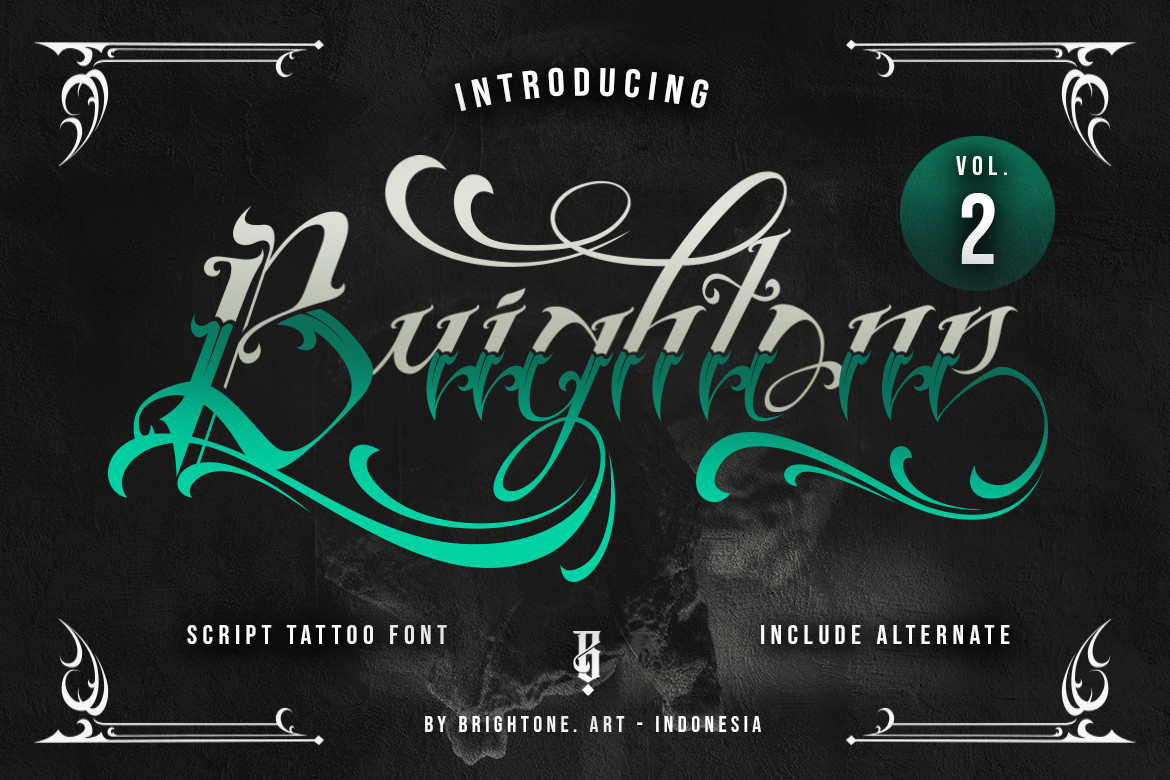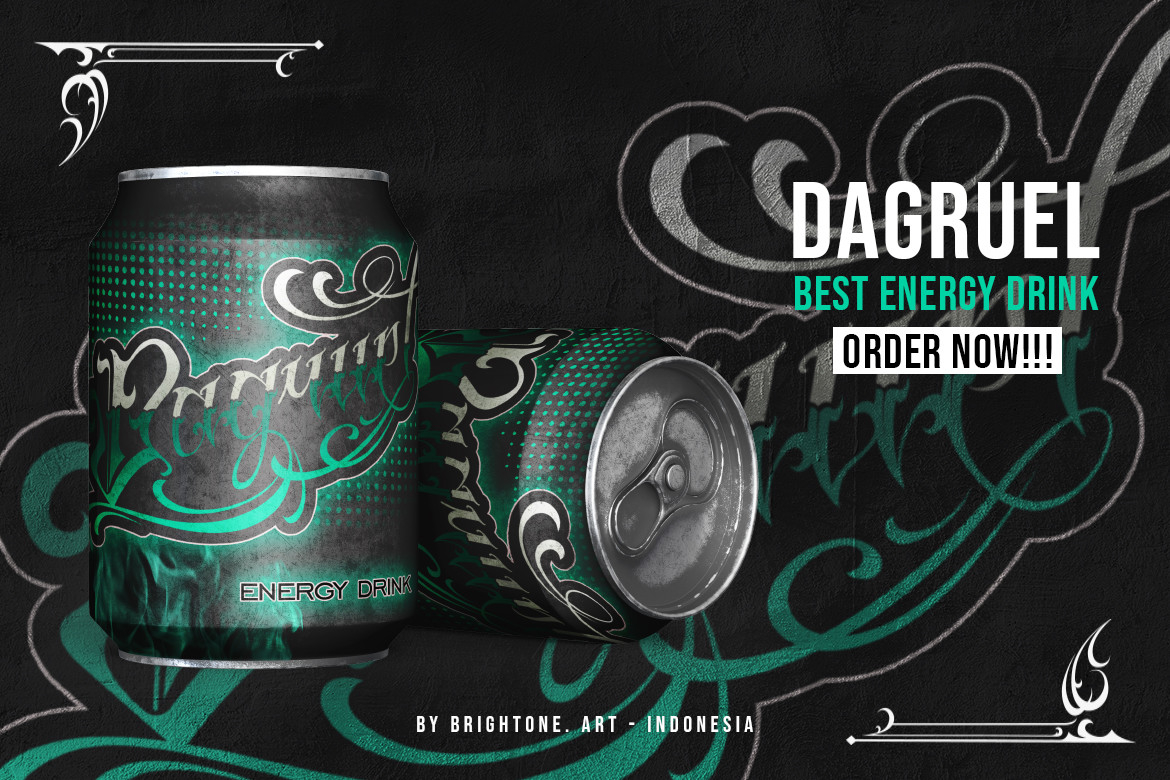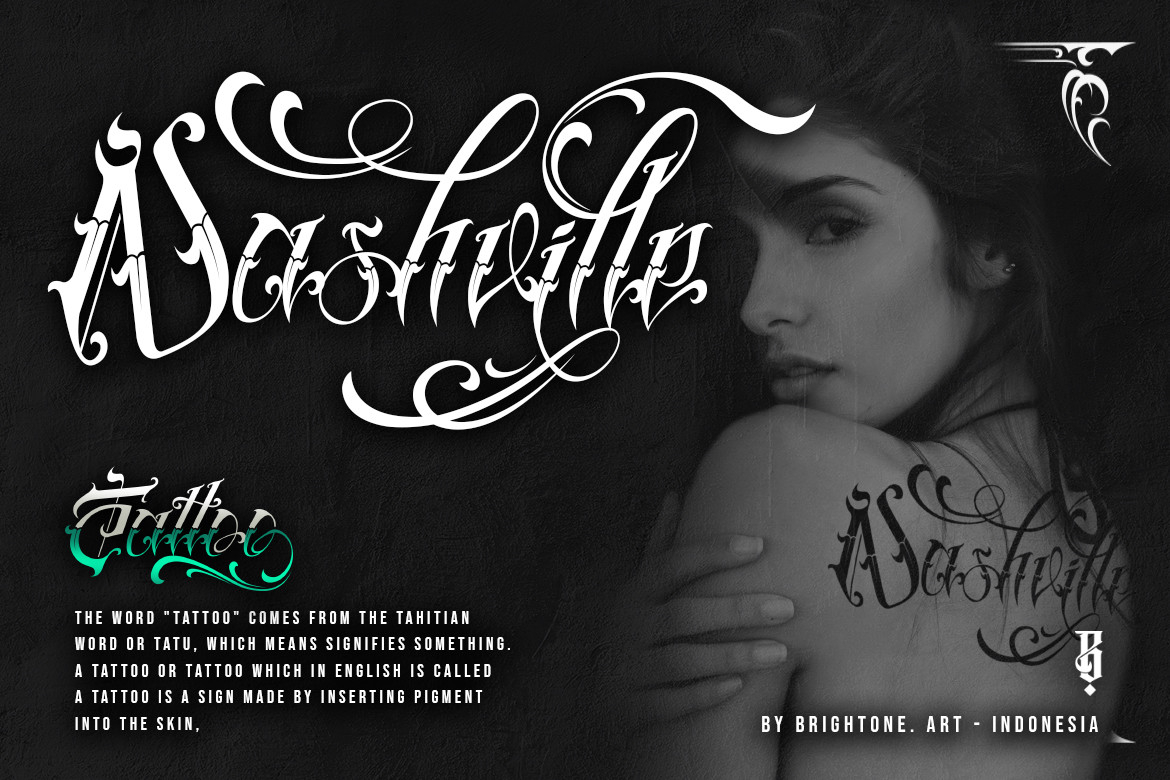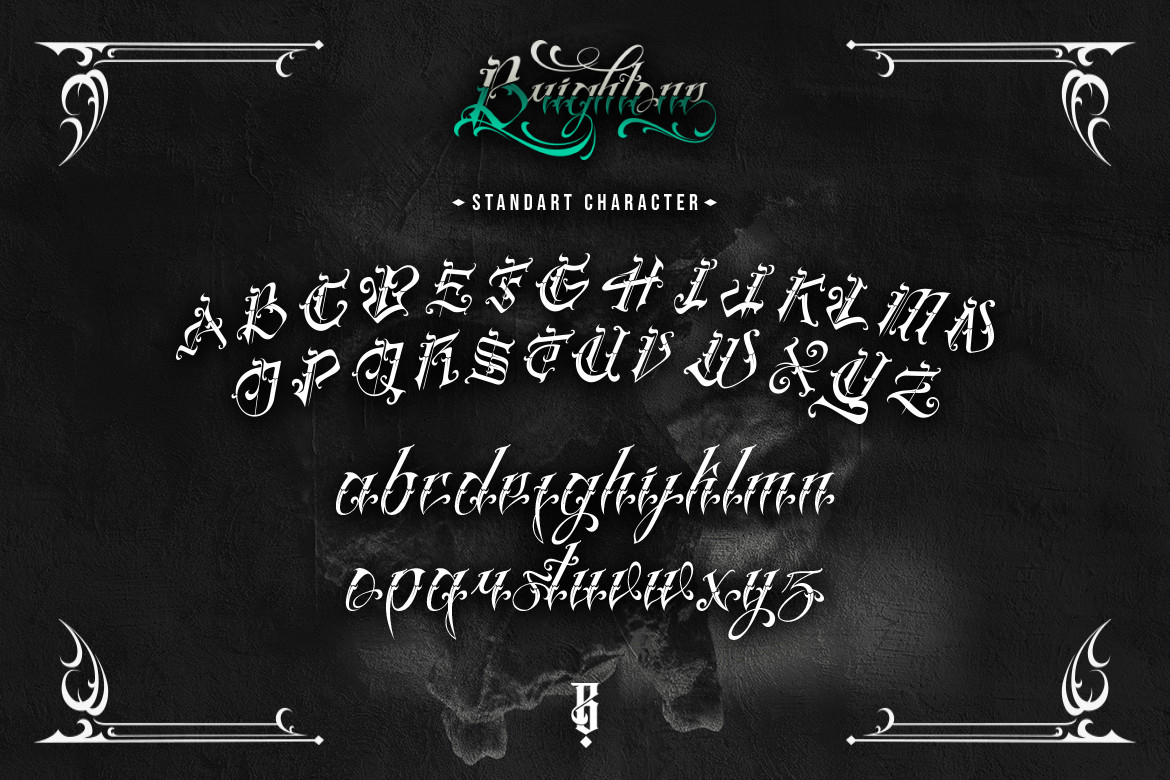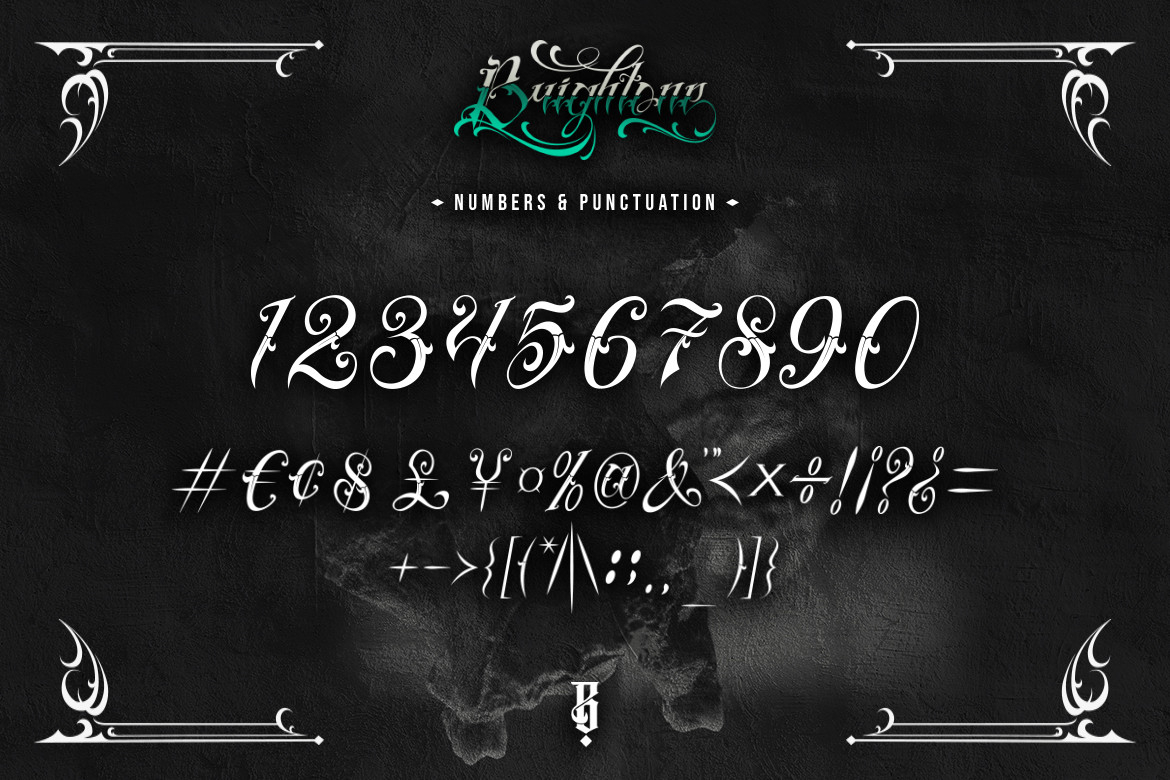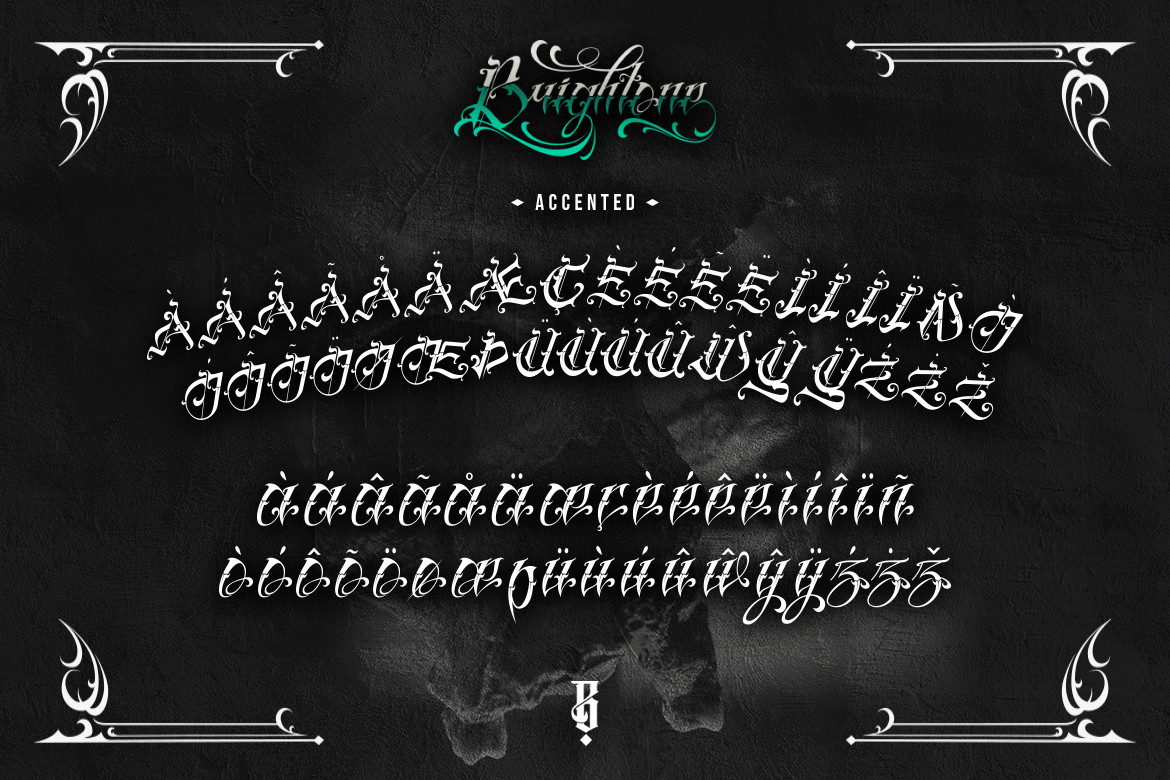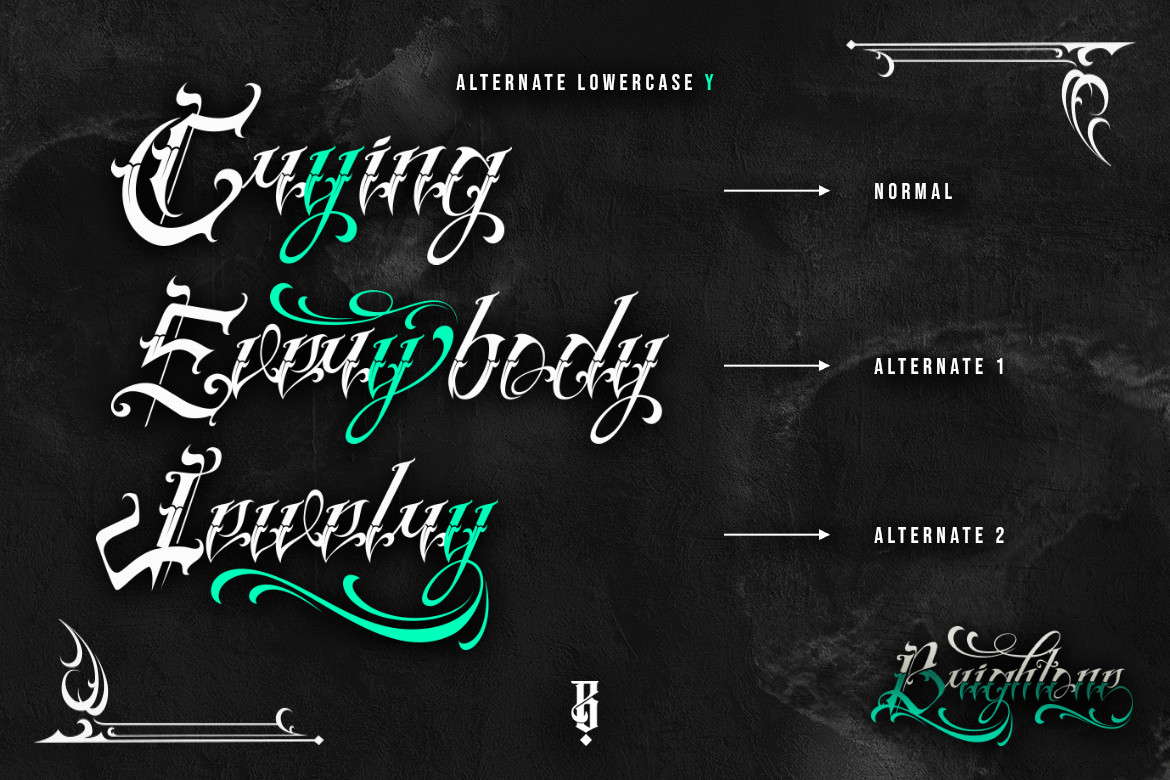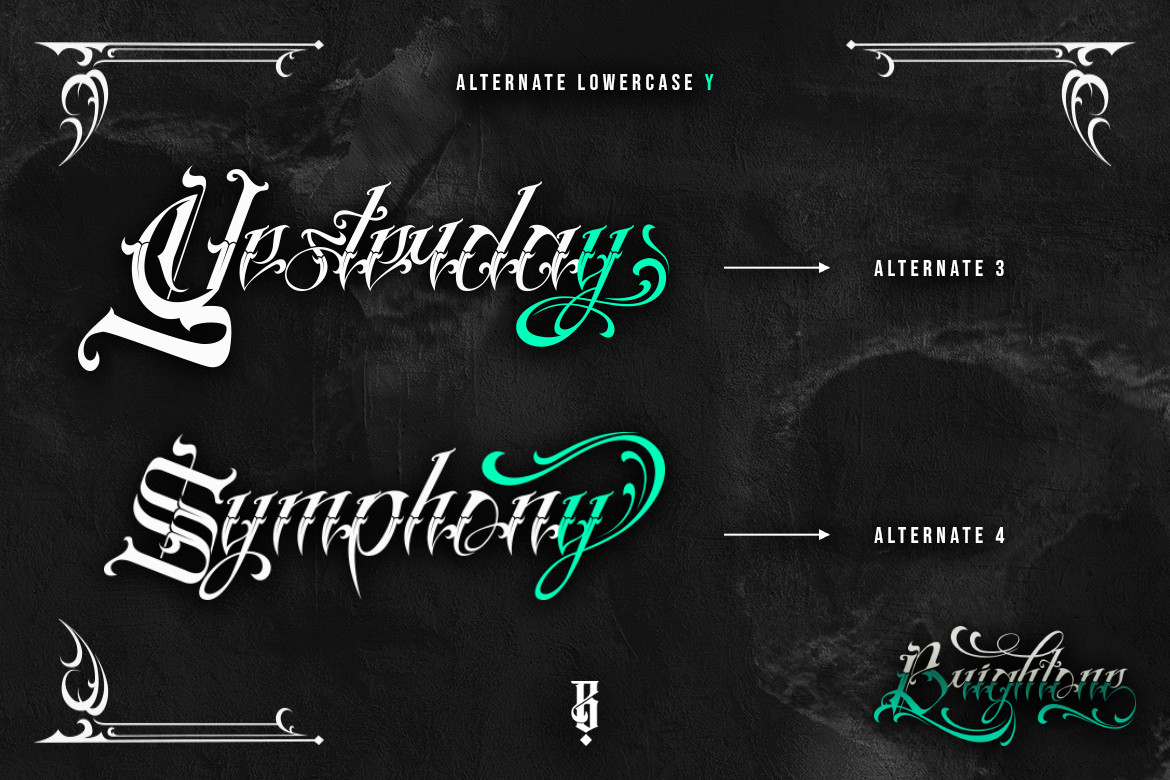
Brightone Font
About Brightone Font
Brightone is a bold and distinct blackletter font. It works incredibly well on labels, branding, tattoo designs or pretty much anything that requires an assertive touch. Brightone is PUA encoded which means you can access all of the glyphs and swashes with ease!